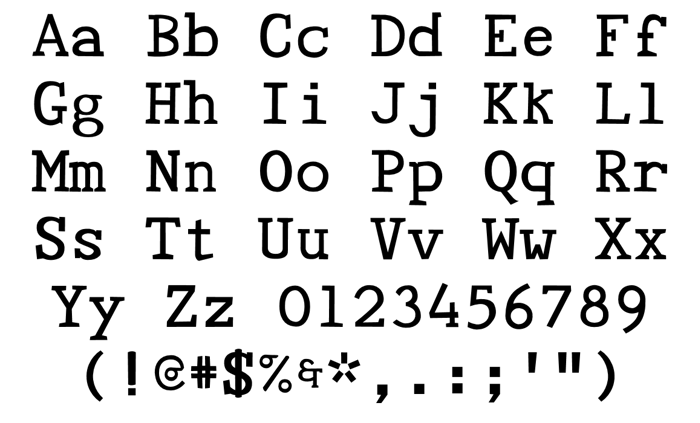
Tye Paloon Font
Tye Paloon is a monospace font that plays at being a typewriter font the way that a child in a bathtub might play at being a submarine. It is designed to be used at small point sizes for a rough, typeish look. It has all the alphanumeric characters plus ordinary typerwriter punctuation.
Excellent! Finally, a typewriter font that isn't distressed. (There must be a thousand blotchy, mis-aligned fonts available.) This isn't a true Courier type style, but it DOES convey the "flavor" of a typewriter at smaller sizes with a an "x" value that makes it very readable.